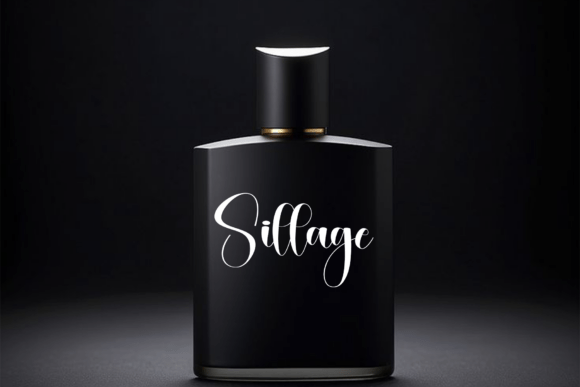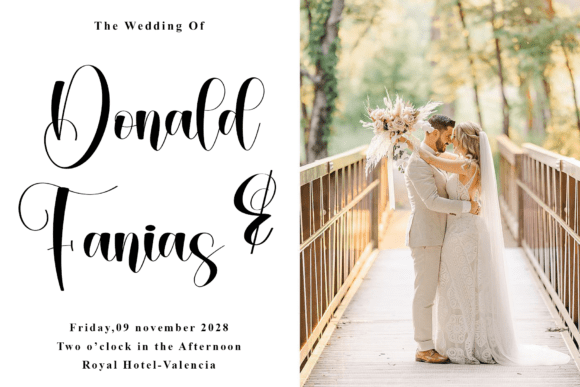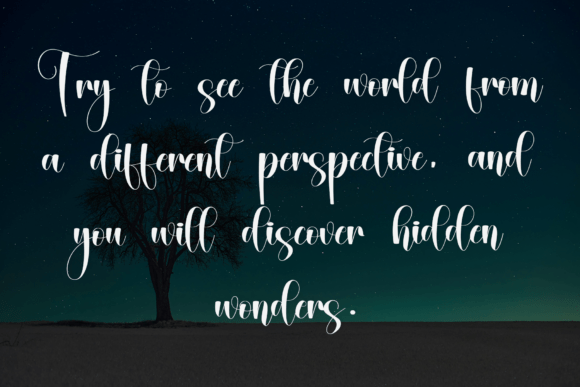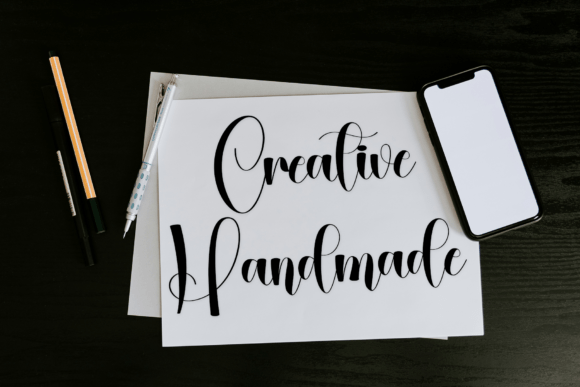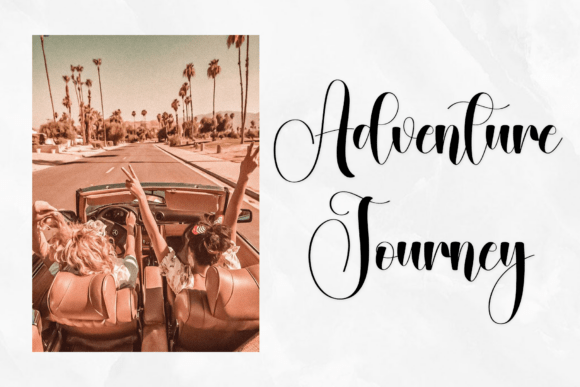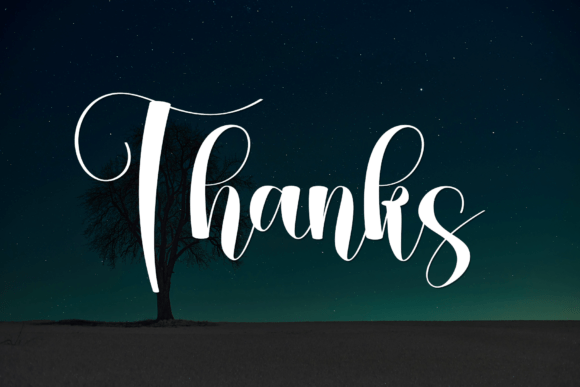
Introduction to Dreamlight Font
As designers, we’ve all been there – staring at a blank canvas, trying to bring our creative vision to life. The perfect font can be the difference between a good design and a great one. That’s why we’re excited to introduce you to the Dreamlight Font, a stunning script font that’s sure to elevate your next creative project.
With its fluid strokes, elegant curves, and balanced letterforms, the Dreamlight Font captures the beauty of hand-drawn calligraphy with a modern twist. Whether you’re designing logos, invitations, packaging, or social media graphics, this versatile font adds a touch of sophistication and personality to any project. And the best part? It’s available as a free download, making it an invaluable design resource for designers of all levels.
From transparent backgrounds to high-quality vector files, the Dreamlight Font is a game-changer for designers who want to take their work to the next level. So why settle for an ordinary font when you can have a piece of design magic? Dive in and discover the beauty of the Dreamlight Font for yourself.
Key Features of Dreamlight Font
- High-quality, professional design suitable for various creative projects, including graphic design, web design, and digital art.
- Unique, handcrafted design with intricate details, making it an excellent choice for designers seeking a distinctive look.
Honest Review: Dreamlight Font
I recently stumbled upon the Dreamlight Font and was excited to give it a try. As a designer, I’m always on the lookout for high-quality design resources that can elevate my creative projects.
Here’s what works well: ✨ The font has a beautiful, dreamy aesthetic that’s perfect for projects that require a touch of whimsy. The transparent background makes it easy to work with, and the high quality of the font ensures that it looks great at any size.
As for limitations, I’d say that the font is quite limited in terms of its character set and flexibility. ⚠️ While it’s great for a specific type of project, it may not be the best choice for more complex designs or projects that require a wide range of font styles.
Overall, I’d say that the Dreamlight Font is a solid addition to any designer’s arsenal, especially for creative projects that require a touch of elegance and sophistication.
- Beautiful, dreamy aesthetic
- High-quality font
How to Use Dreamlight Font
Tips for Getting the Most Out of the Dreamlight Font
To get the most out of the Dreamlight Font, be sure to use it in conjunction with a transparent background to create a high-quality design. This will allow the font to stand out and add a professional touch to your project.
Common Use Cases for the Dreamlight Font
The Dreamlight Font is a versatile design resource that can be used in a variety of projects, including logos, graphics, and text-based designs. Its high-quality design makes it perfect for use in both personal and commercial projects.